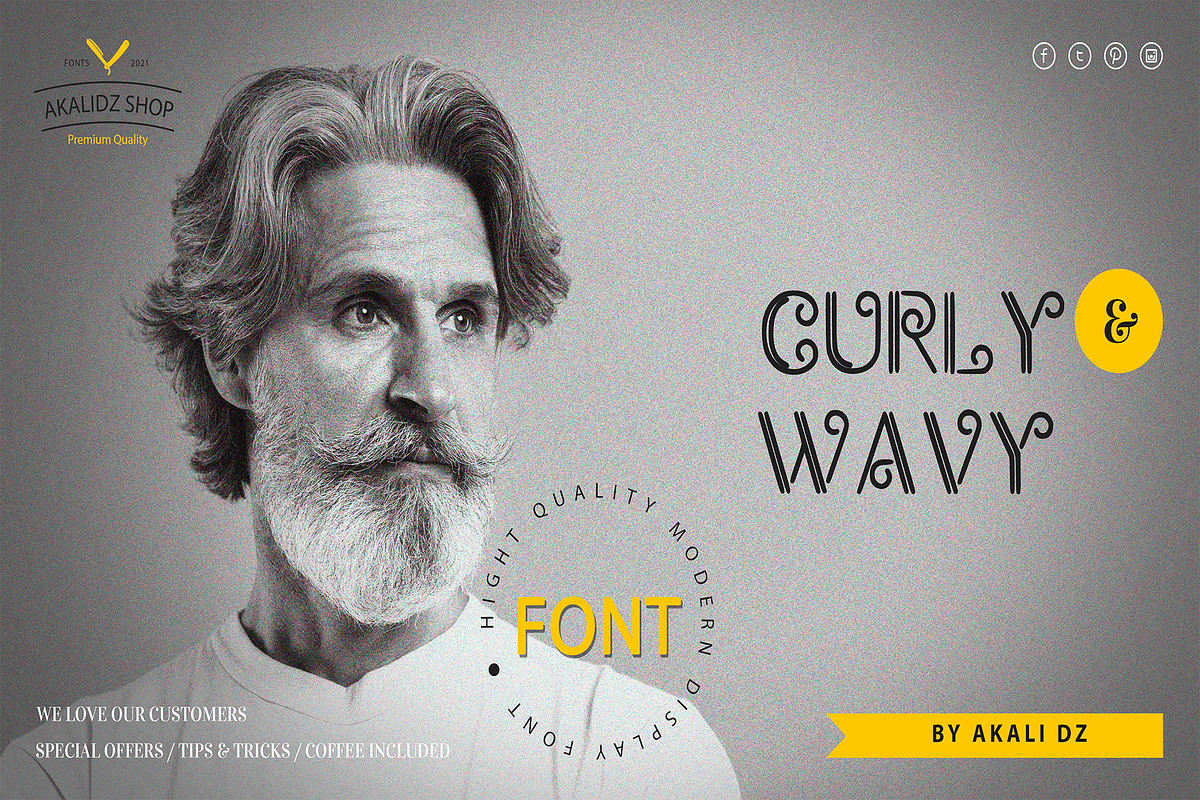
The Curly & Wavy Font Free Download is a playful and whimsical typeface designed to add movement and fun to your designs. Featuring bold, curly strokes and flowing wavy elements, this font is perfect for creative projects that require a dynamic and cheerful vibe. Whether you're designing for children’s books, event invitations, branding, or social media graphics, Curly & Wavy brings an energetic and unique style to your creative work.
Curly & Wavy Font Free Download is ideal for designers looking to incorporate playful, fun typography into their work. Perfect for whimsical projects or anything requiring a cheerful, lighthearted touch, this font will make your designs stand out. Download this joyful font today and bring a wavy, curly twist to your creations!